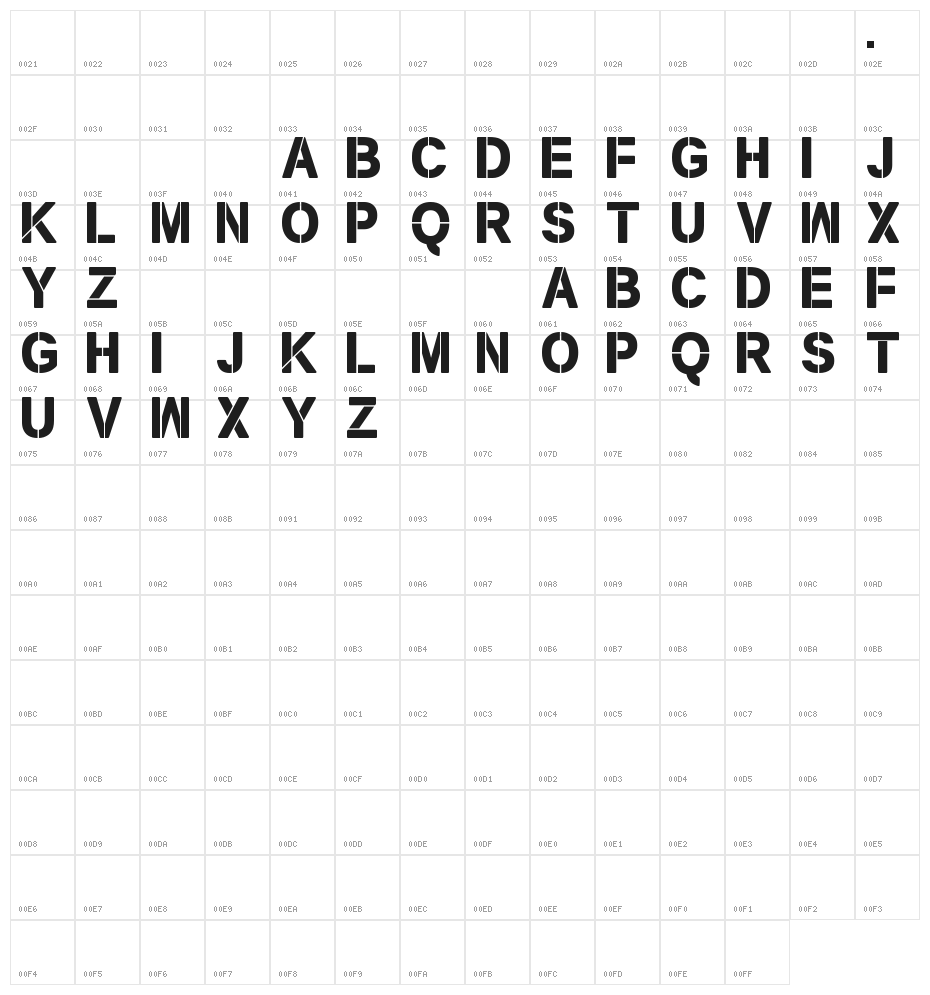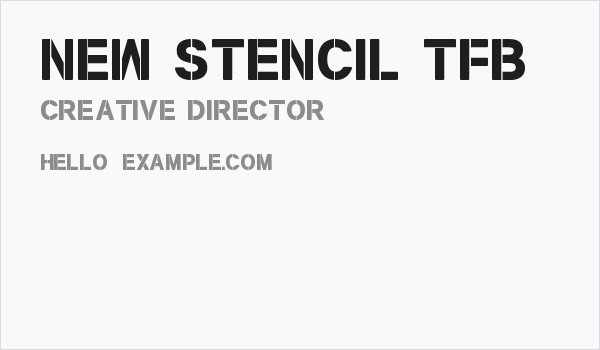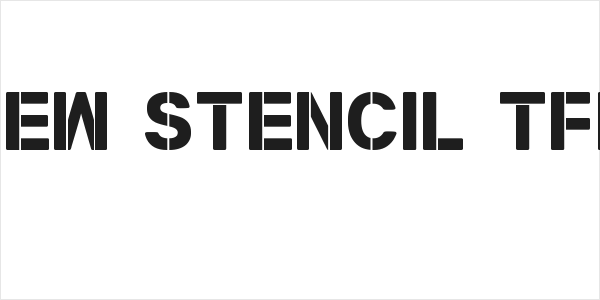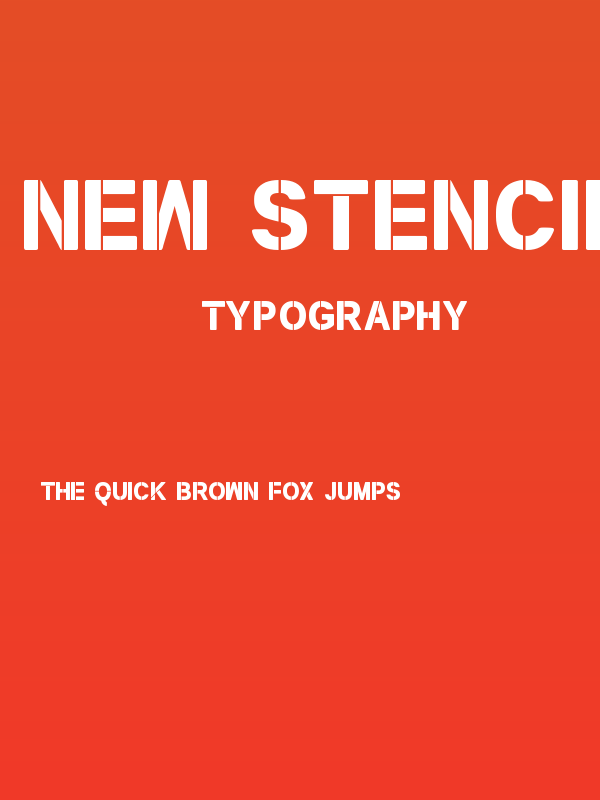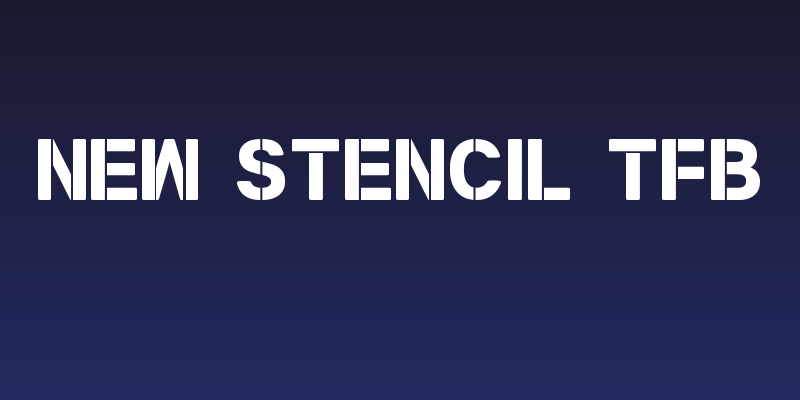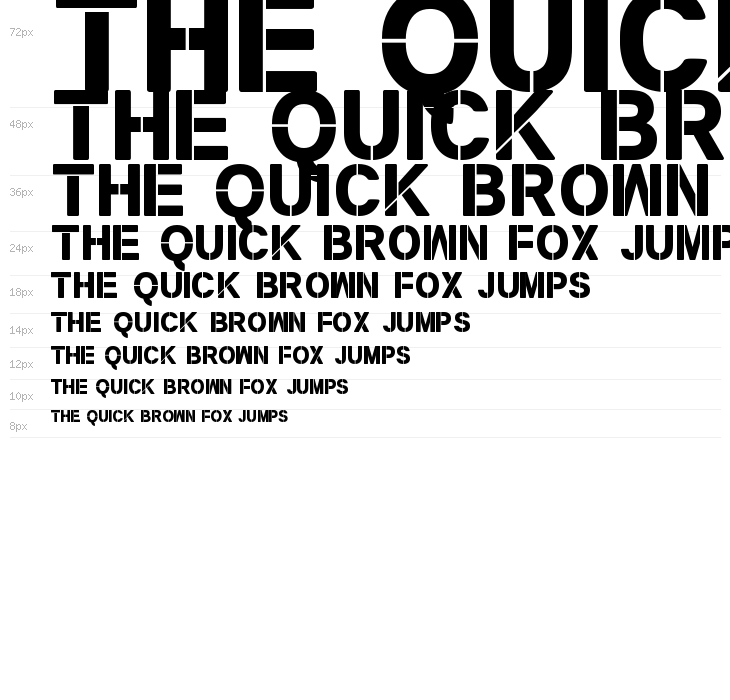
New Stencil tfb Font
New Stencil tfb Description
This font features a bold, stencil-like design with distinct breaks in each character, giving it a rugged and industrial feel. The uppercase letters are uniform in height and width, creating a strong visual impact. The geometric shapes and sharp angles contribute to its modern and utilitarian aesthetic. The font is highly legible, making it suitable for various design applications where a bold statement is needed. Its unique cut-out style adds an element of intrigue and creativity, making it ideal for projects that require a distinctive and memorable typeface.
Proposed ProjectsIdeal for branding, posters, signage, and any project requiring a bold, industrial look.